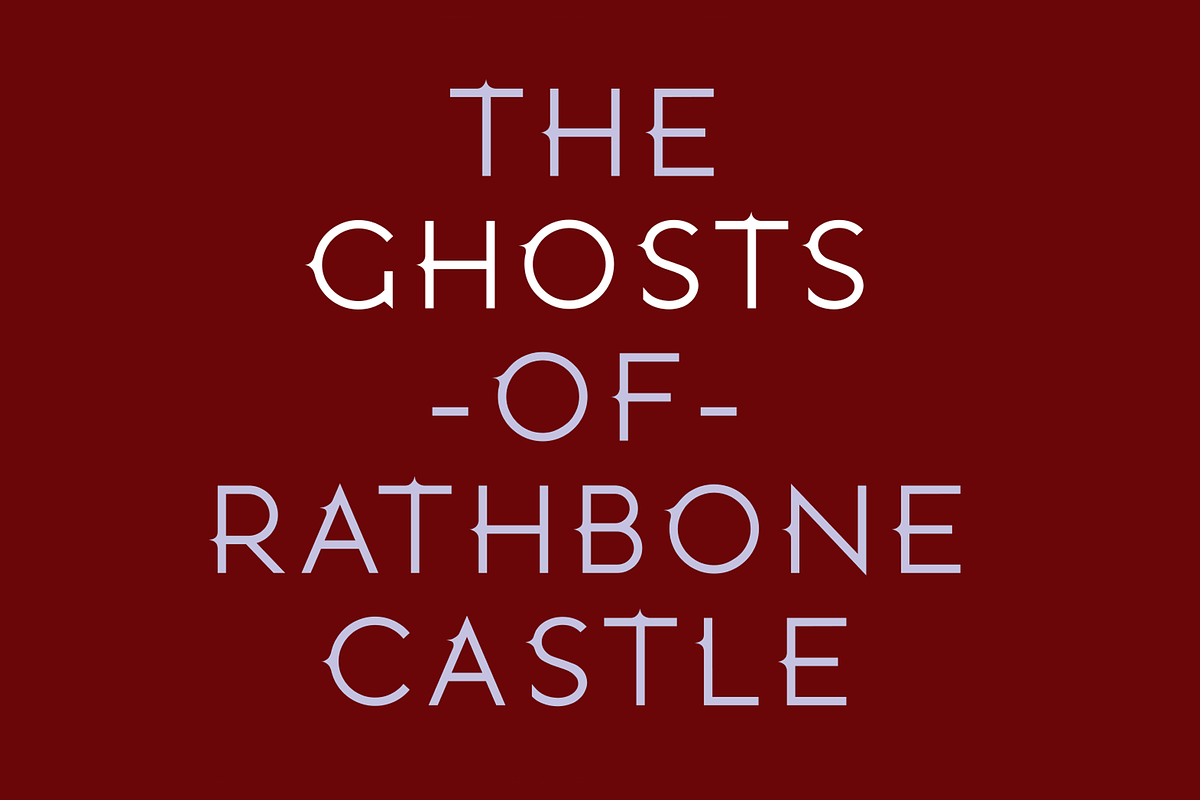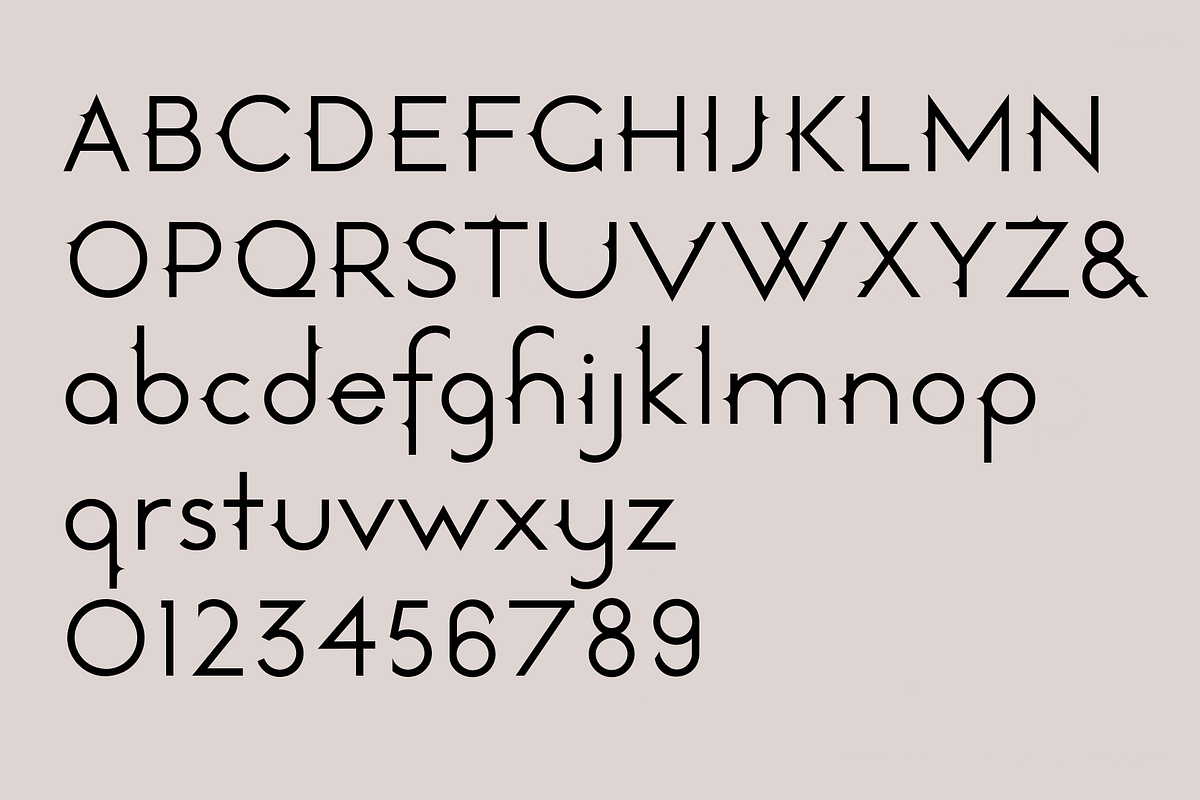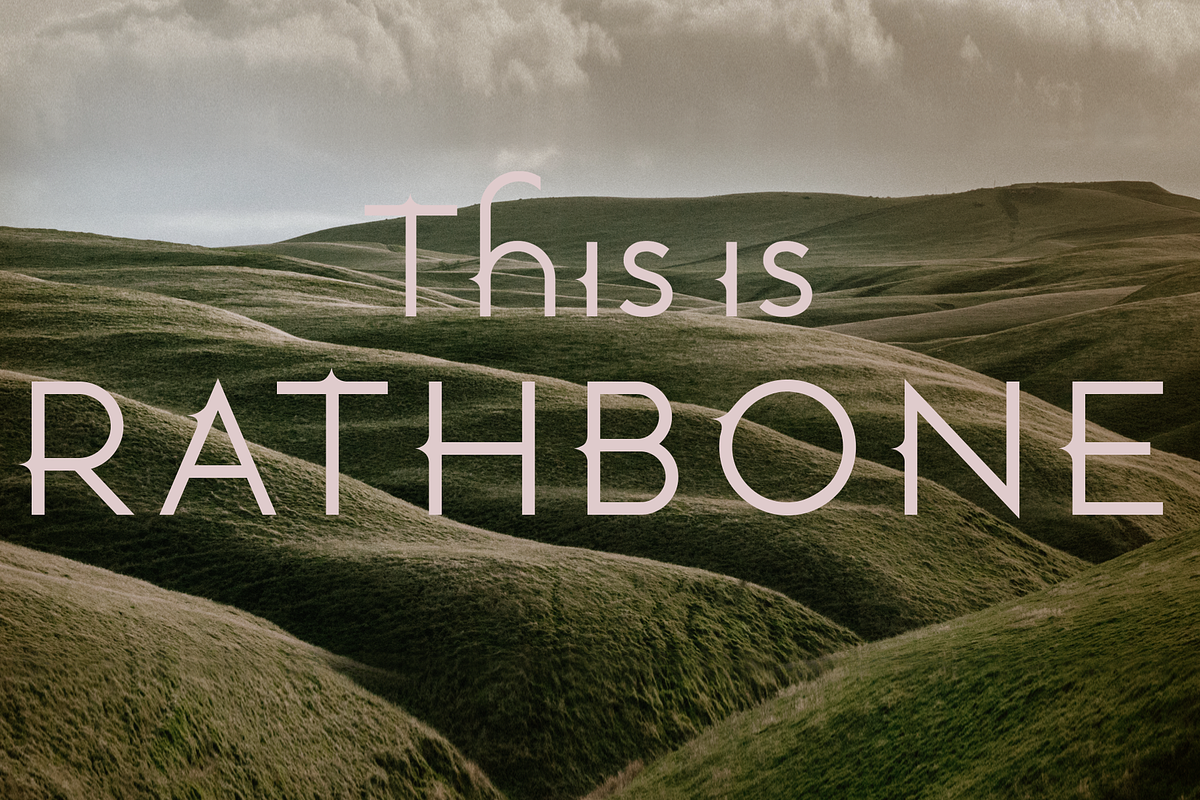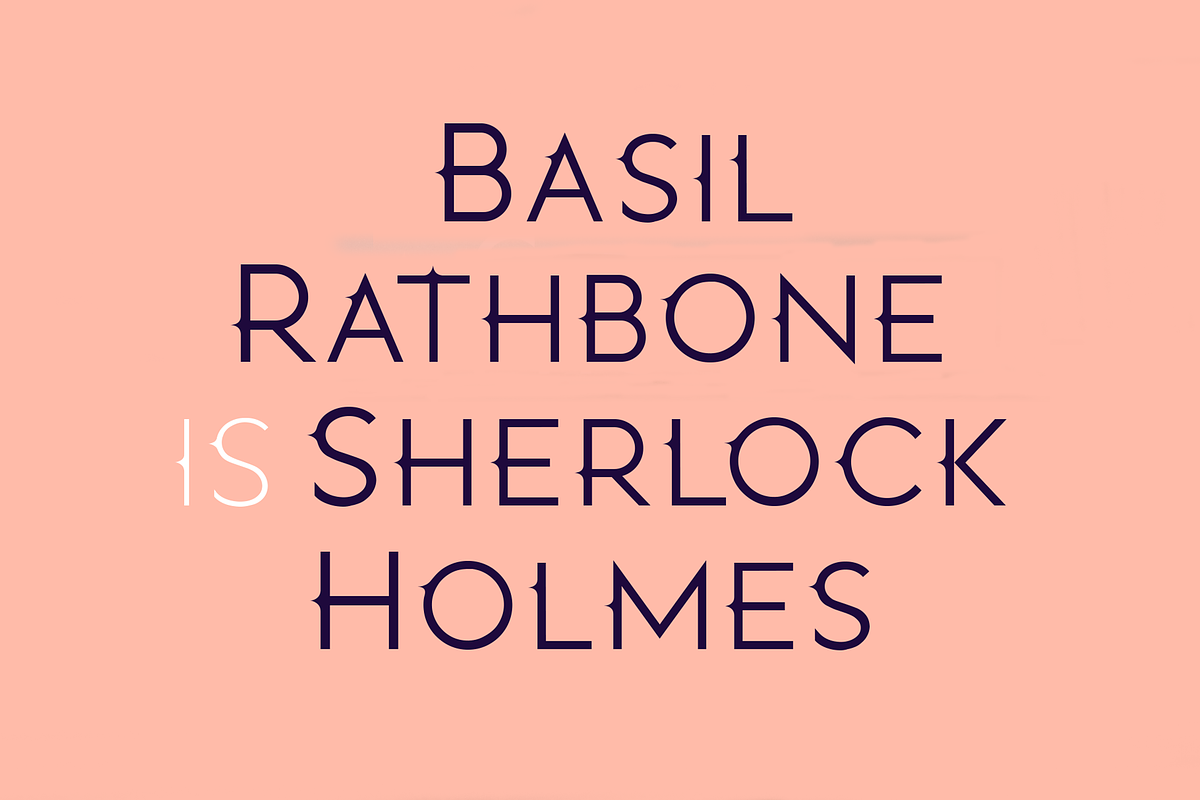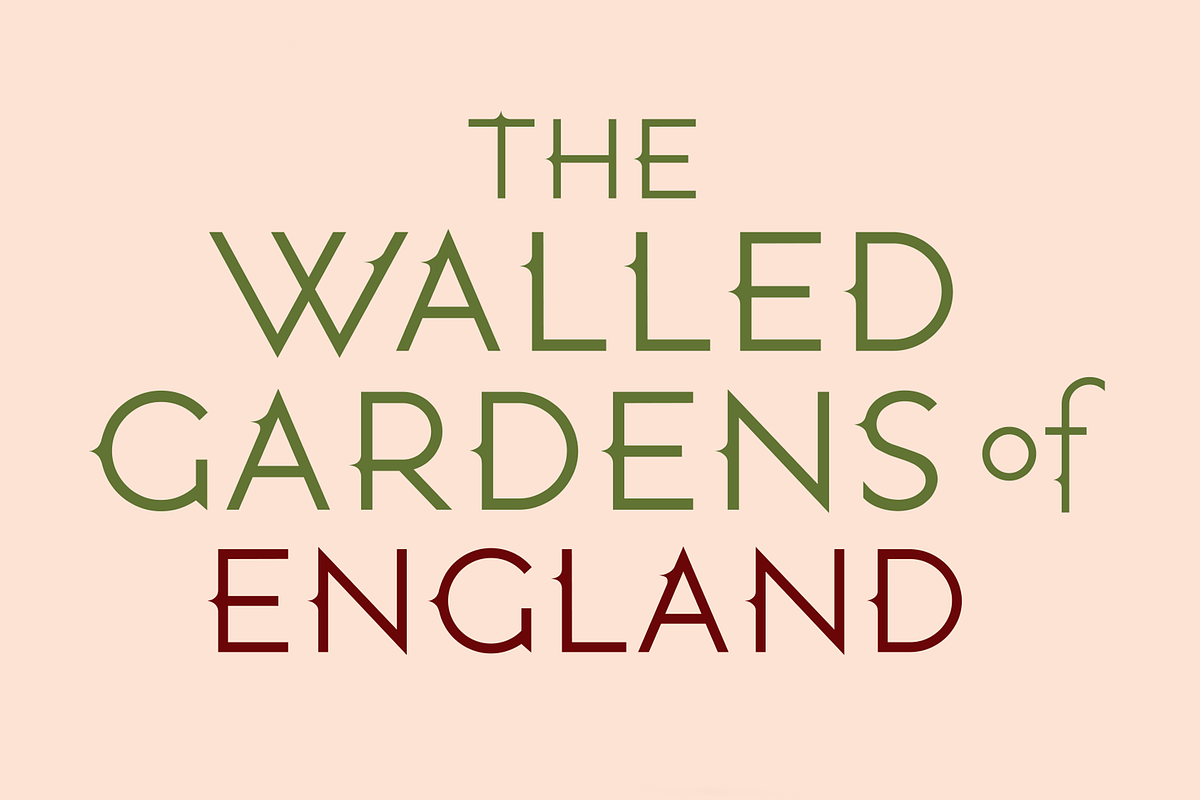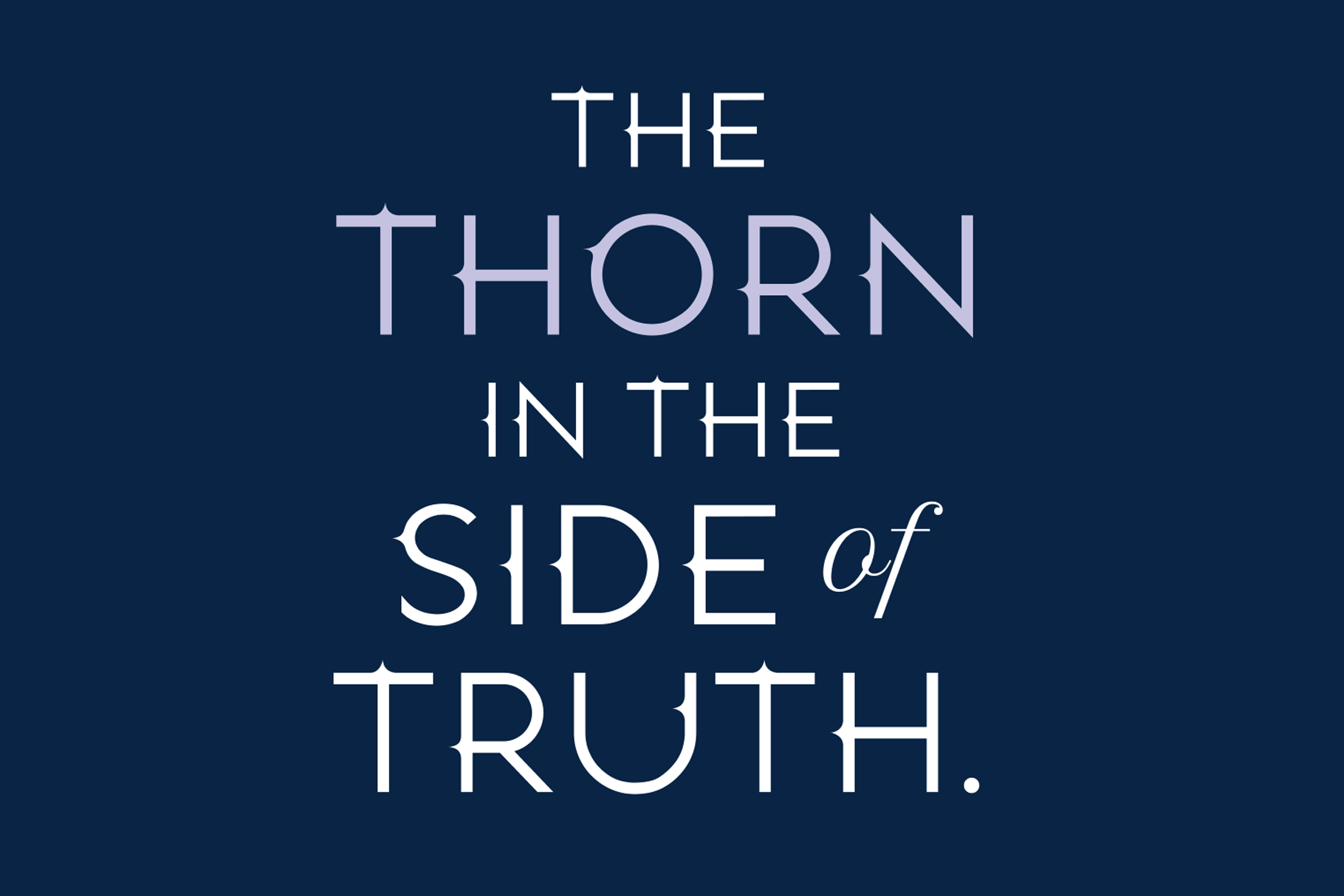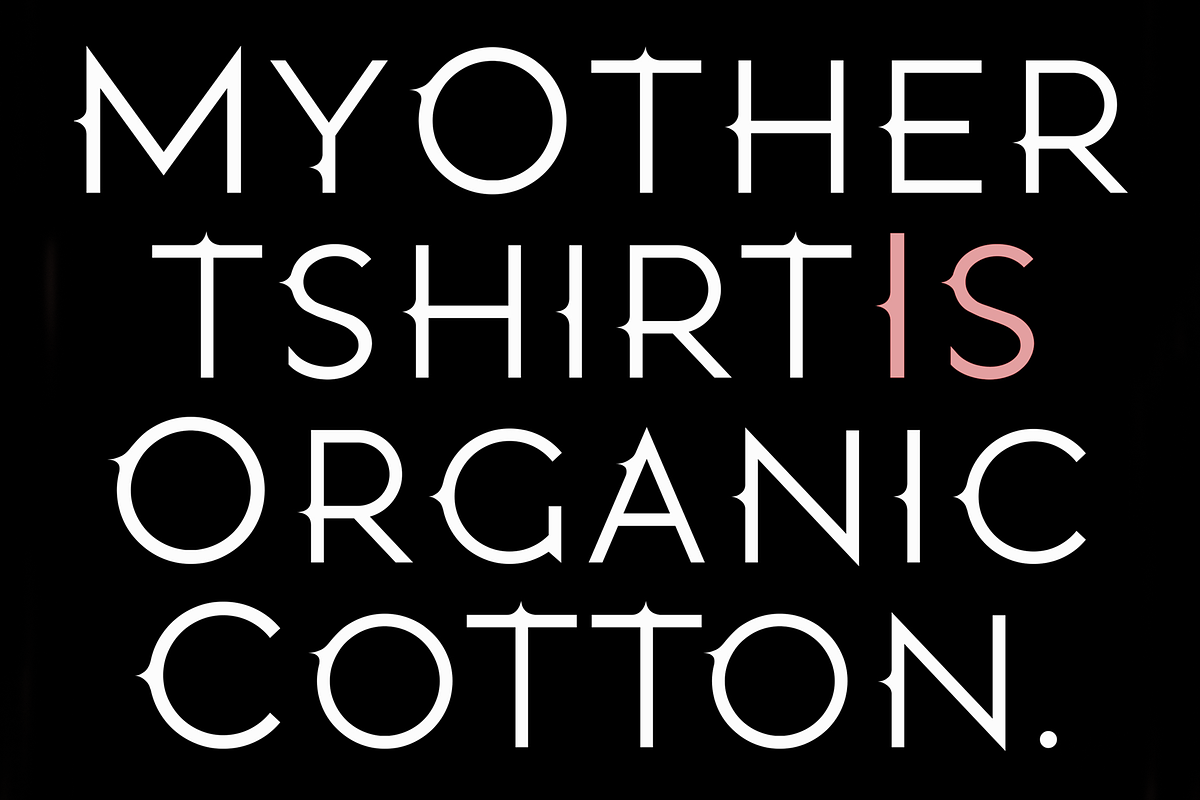
Rathbone. Unique display font
Rathbone is my homage to England. Named after the famous British actor synonymous with playing Sherlock Holmes - Basil Rathbone, this striking typeface combines the clean lines of a modern sans serif font, but with unique, thorn-like touches inspired by the English Rose.
Rathbone looks best in all caps and can be used in many design projects when you want a sans serif font with attitude and character.
Rathbone comes in 2 weights and supports French, German and other European languages.